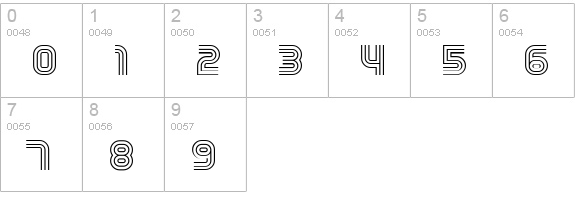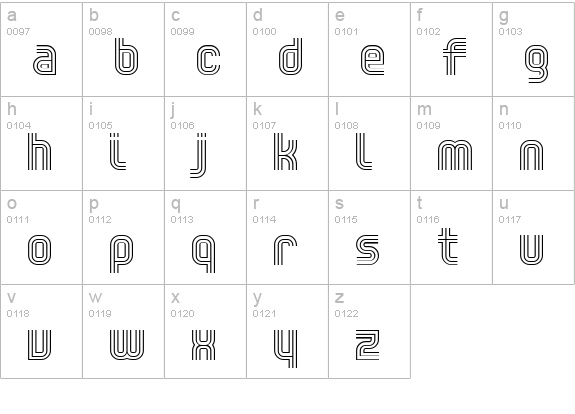
Trisect Light is a refined, elegant variant in the Trisect typeface family \xE2\x80\x94 well suited to elegant body text, refined sub-headings, and luxury branding.
Trisect Light is a modern and stylish font that combines simplicity with a touch of elegance. Its clean lines and subtle curves make it perfect for any design project, whether it's a website, logo, or print material. The light weight of the font adds a sense of sophistication and refinement, making it suitable for both professional and personal use. One of the best things about Trisect Light is that it is absolutely free! You can easily download this font at FontsMarket.com and start using it right away. With its versatile nature, Trisect Light can be used in a variety of design applications, allowing you to bring your creative visions to life. Whether you're a graphic designer, a web developer, or simply someone who appreciates beautiful typography, Trisect Light is sure to impress. Its sleek and modern look will instantly elevate your designs, giving them a polished and professional edge. Don't miss out on the opportunity to enhance your projects with this amazing font. Download Trisect Light for free at FontsMarket.com and let your creativity shine!